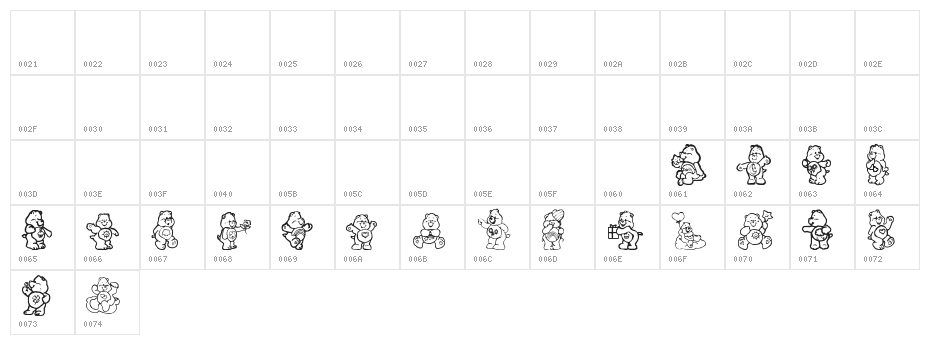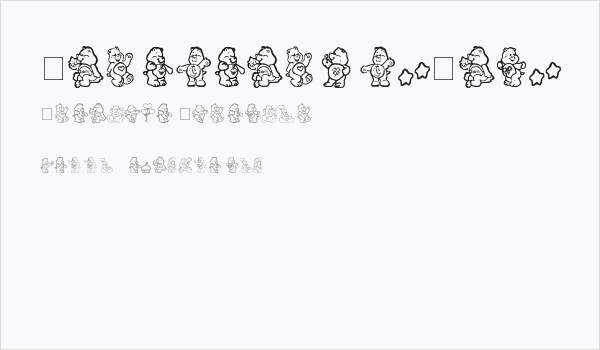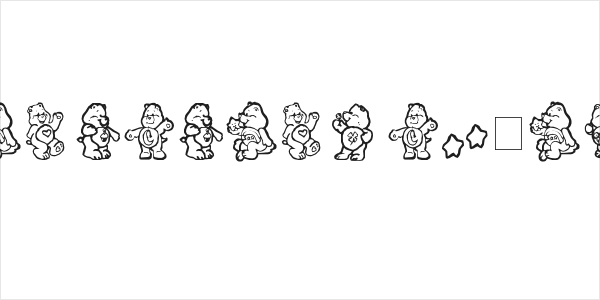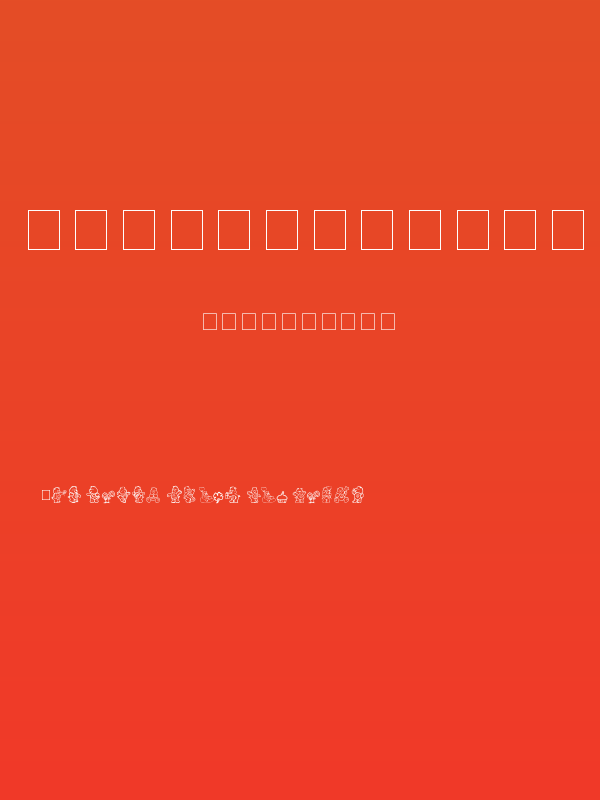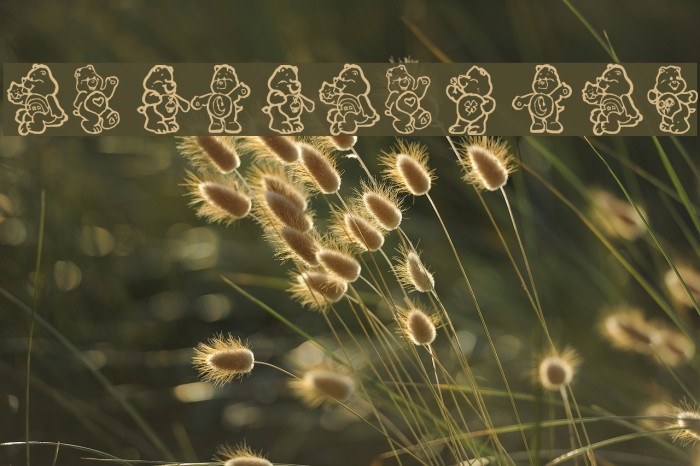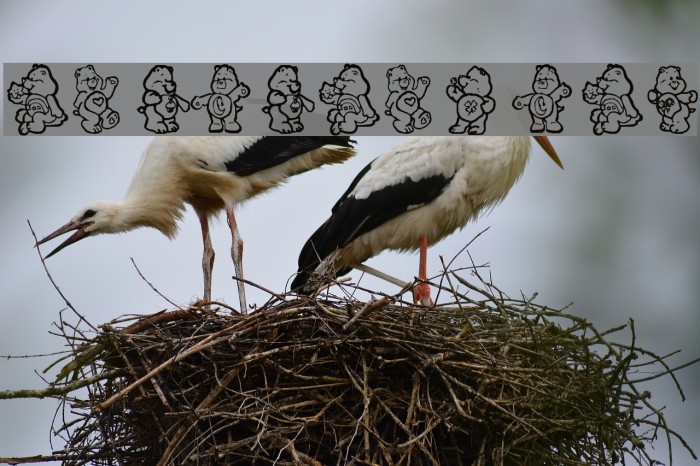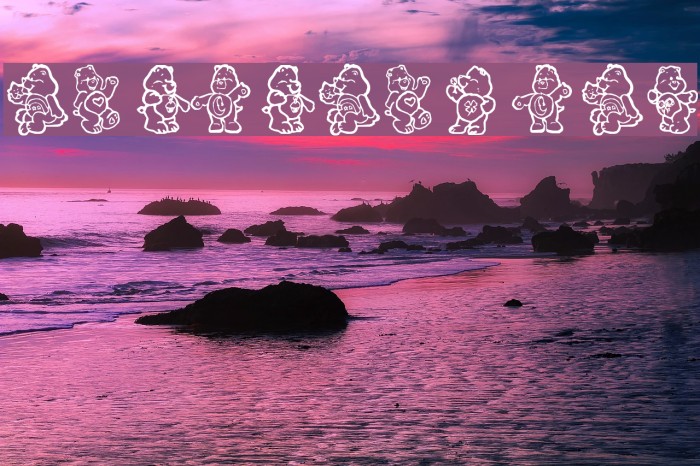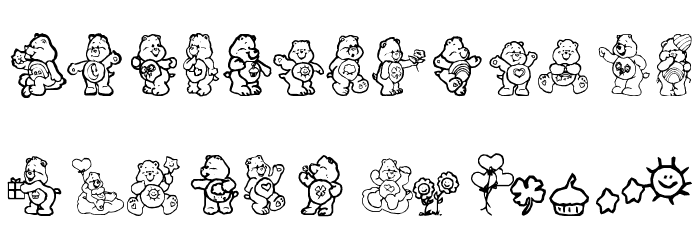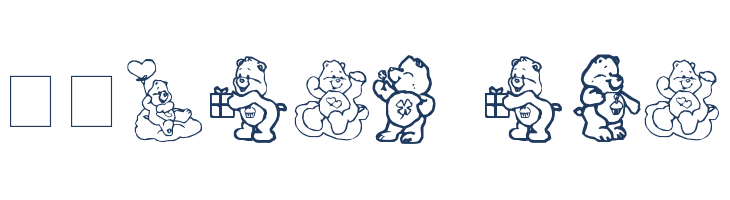
CarebearsbyIacy Font
CarebearsbyIacy Description
A decorative dingbat font featuring outlined cartoon bear characters and playful icons such as hearts, stars, flowers, balloons, and cupcakes, all rendered in a hand-drawn, whimsical style.
| Overall Style | Decorative, Whimsical, Playful |
| Use Case | Illustrative elements, Decorative accents, Themed graphics |
| Proposed Projects | ChildrenΓ’β¬β’s party invitations, coloring books, scrapbooking, playful branding, educational materials. |